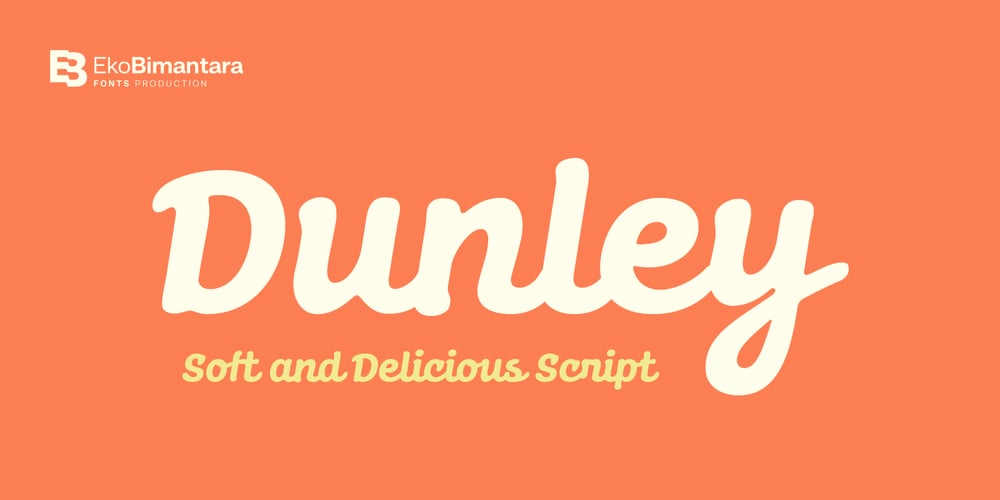
Dunley Font Family was designed by Eko Bimantara and published by Eko Bimantara. Dunley contains 1 styles and family package options. Dunley is soft script that fit for various design purposes. Good for display sizes, branding, titles, logo and more.